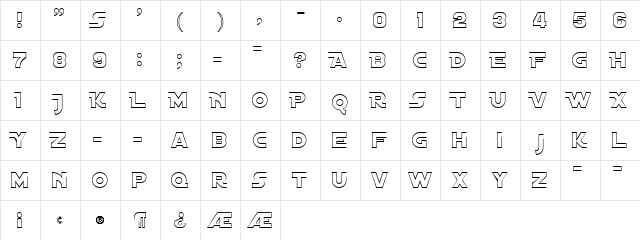
Distant Galaxy AltOutline Regular
Design Context for Distant Galaxy AltOutline Typeface
Distant Galaxy AltOutline is built around its visual character rather than neutral utility — its distinctive forms are designed to make an impression at display sizes.
Font Pairing: Pair with a clean neutral sans-serif for body copy to let Distant Galaxy AltOutline's character lead without overwhelming the composition.
Pro Tip: Treat Distant Galaxy AltOutline as the centrepiece of your typographic hierarchy. One strong heading set in a decorative face can carry an entire layout.